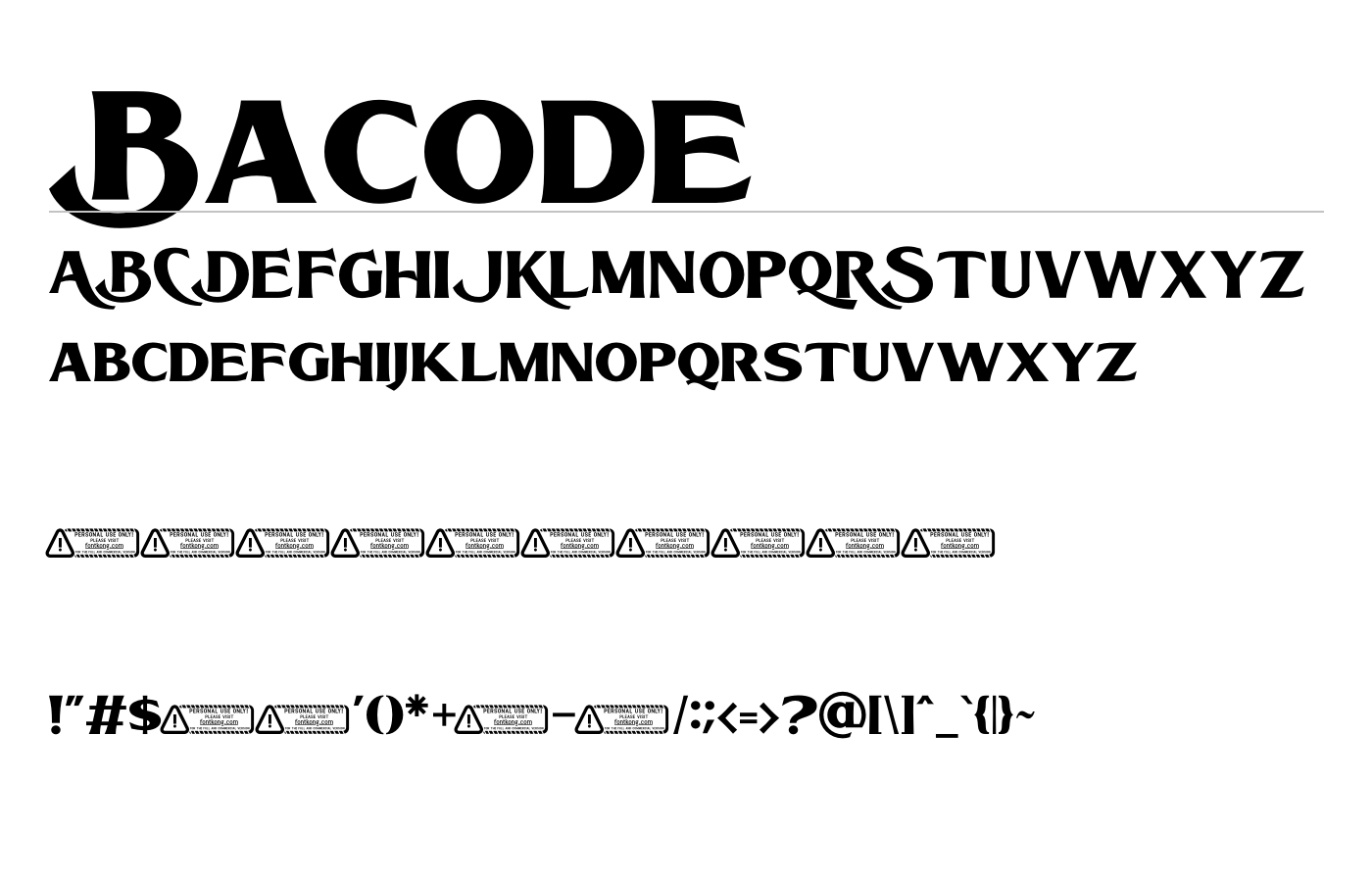
Bacode is a bold serif font with a strong, slightly decorative style that combines traditional serif shapes with unique, playful flourishes on certain letters, giving it a vintage yet quirky character. Its moderate contrast and solid weight make it ideal for attention-grabbing headlines and logos that want to convey a sense of personality and creativity with a touch of elegance. This font works well in branding, posters, and editorial designs where a distinctive and memorable look is desired.
Bacode Font
About Bacode Font